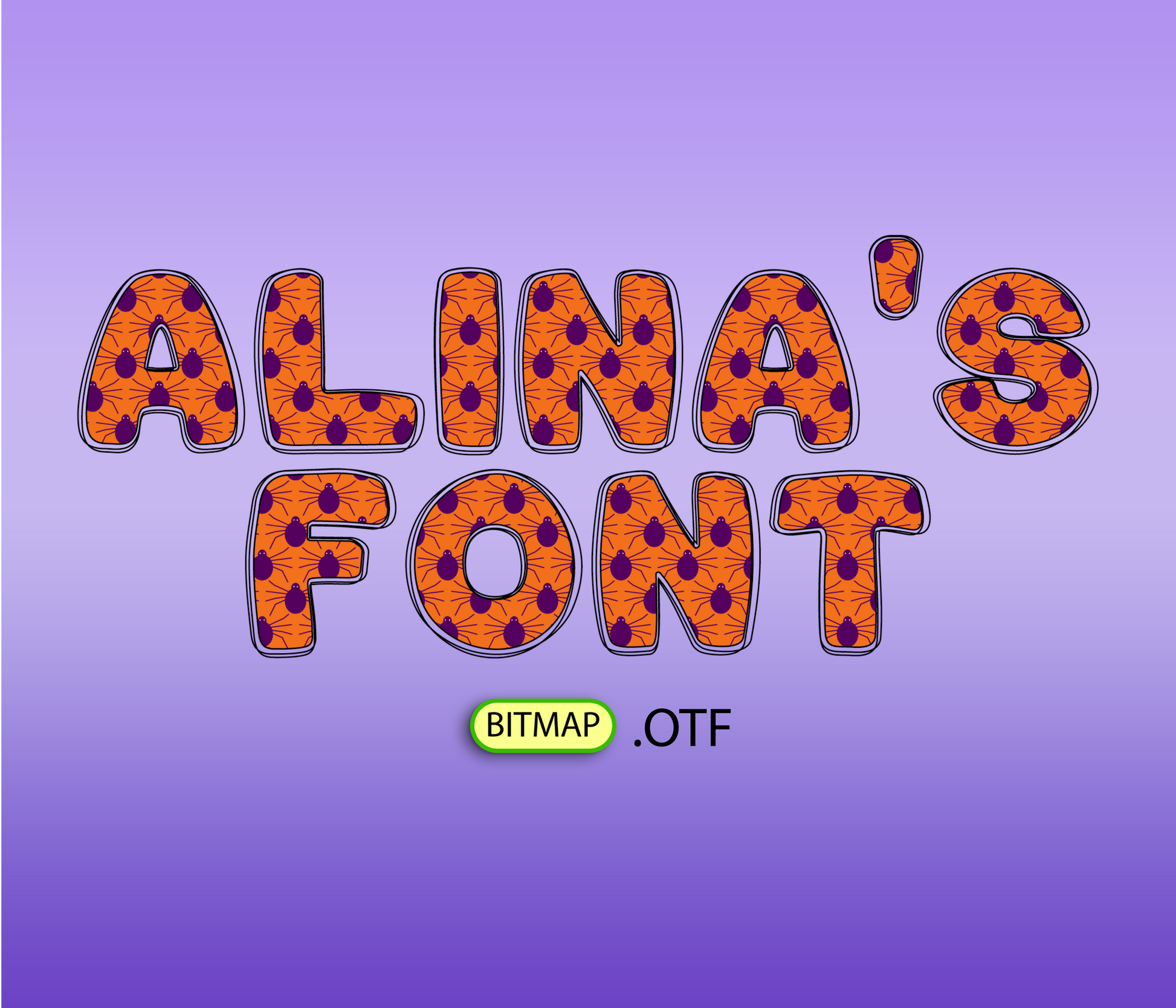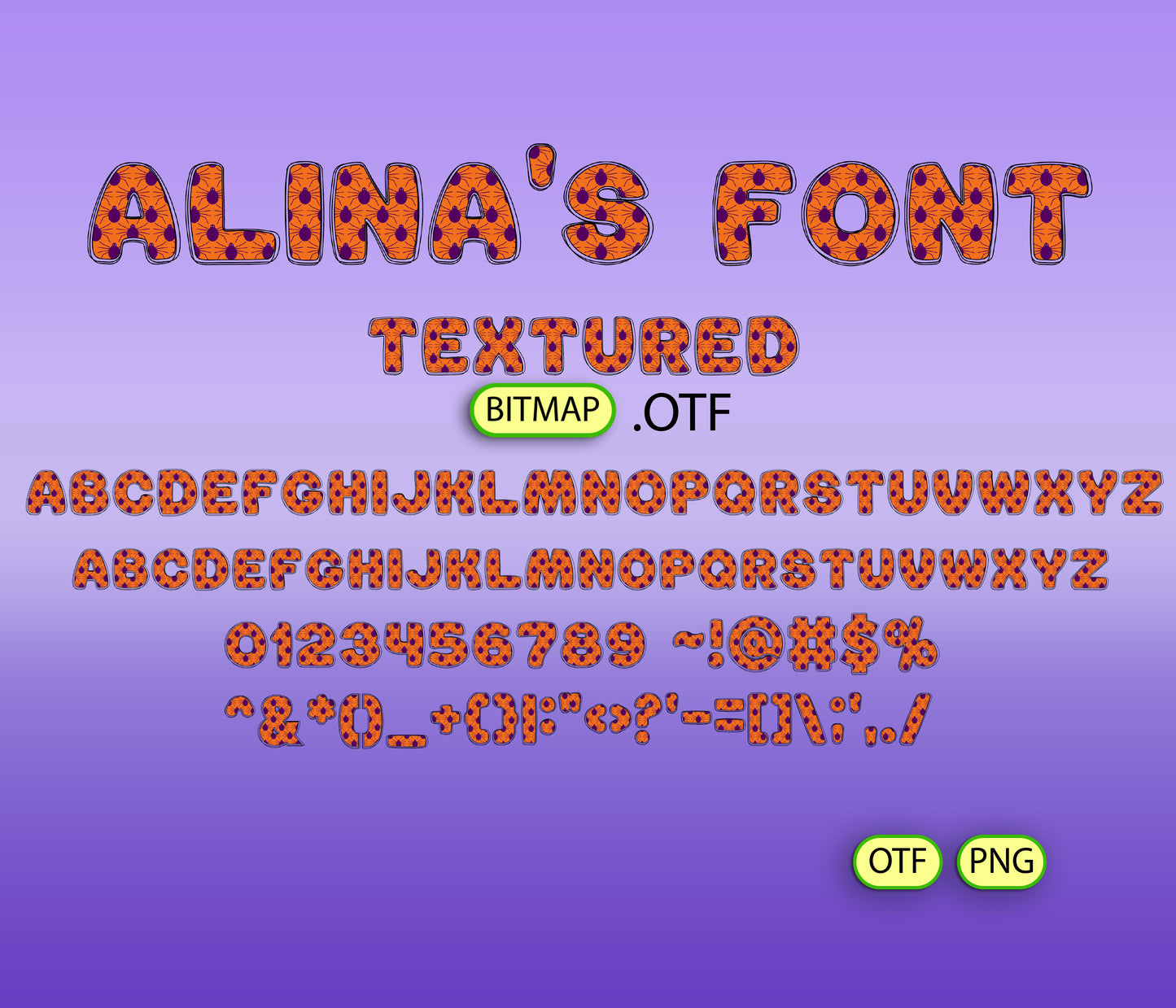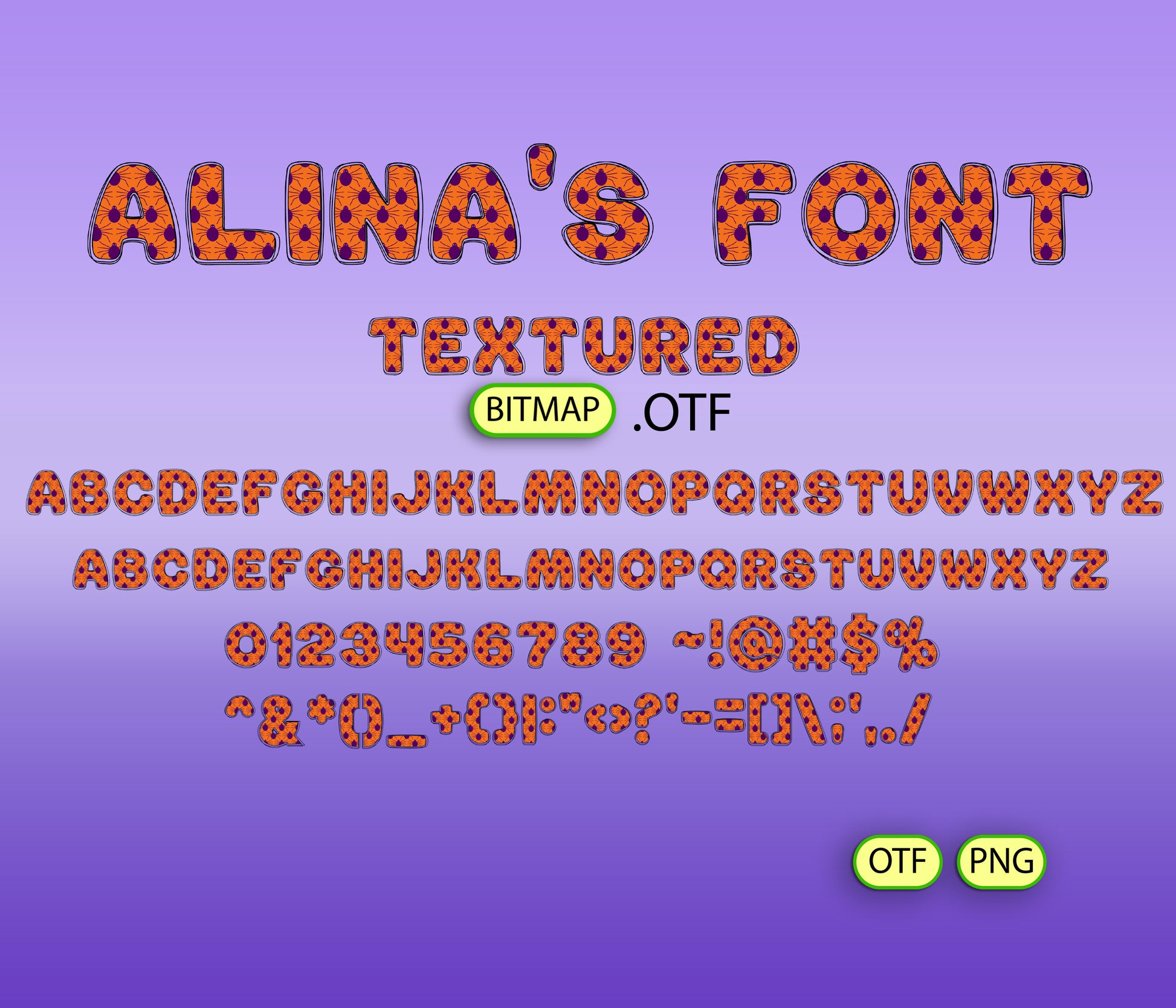
FREE Monster Mayhem Pattern Font
Monster Mayhem Font Textured Creature Chaos
Step into the wild world of beast-filled nightmares with our Monster Mayhem font, capturing the essence of creature horror and savage dread. Perfect for monster events, beast-themed designers, wild content creators, and creative professionals, this font brings the ferocious, roaring spirit of untamed nightmares to your projects. Create terrifying invitations, creature-themed merchandise, or digital content with the primal, howling energy of ultimate monster scares.
Our Monster Mayhem font features wild, beast-like shapes and bold characters reflecting the savage yet terrifying aesthetic of creature horror scenarios. Ideal for:
- Monster Events: Create attention-grabbing invites, posters, and banners for creature parties, beast encounters, and wild-themed gatherings
- Beast Design: Perfect for book covers, movie promotions, and monster-themed party accessories that capture savage terror
- Digital Media: Enhance websites, blogs, and social media with dramatic headers and graphics that express wildness and chaotic atmosphere
- Entertainment Content: Add authentic character to creature materials, beast designs, and promotional materials for monster events
- Personal Projects: Bring wild edge to scrapbooking, DIY crafts, and home decor inspired by the aesthetics of creature frights